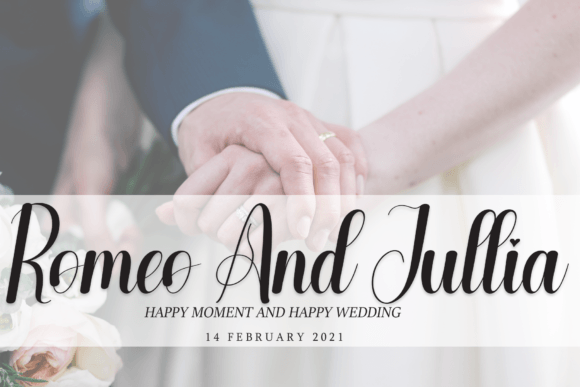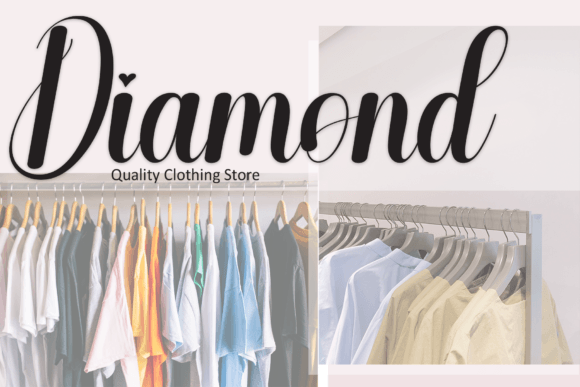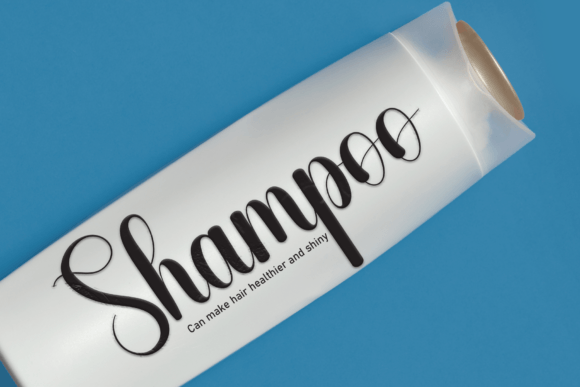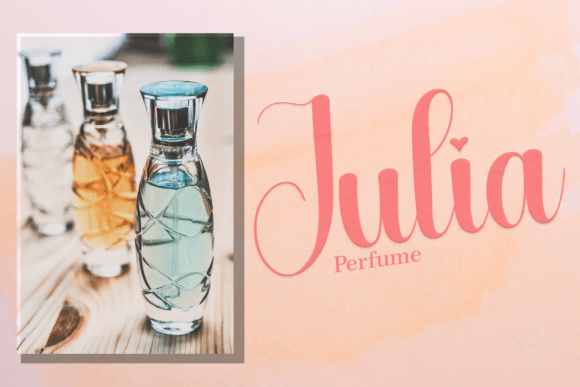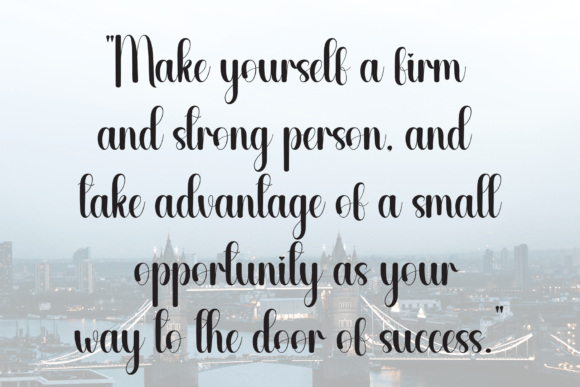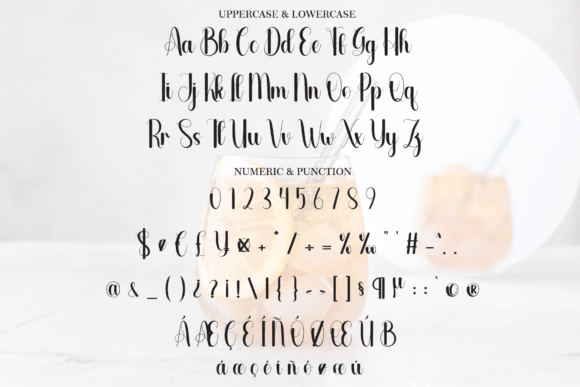
Introducing Drink Font: The Sweet and Friendly Handwritten Font for Your Creative Projects
Are you looking for a font that can add a touch of sweetness and friendliness to your designs? Look no further than Drink Font! This beautiful handwritten font is perfect for creating wedding invitations, cards, and other designs that require a fun and playful touch. In this article, we’ll take a closer look at Drink Font, its features, and how you can use it to elevate your creative projects.
What is Drink Font?
Drink Font is a sweet and friendly handwritten font that is designed to bring a touch of warmth and personality to your designs. Its fresh and neat style makes it ideal for a wide range of creative projects, from wedding invitations and cards to posters, flyers, and more. Whether you’re a designer, crafter, or DIY enthusiast, Drink Font is a great addition to your font collection.
Key Features of Drink Font
- Sweet and Friendly Style: Drink Font has a unique and charming style that is sure to capture the attention of your audience.
- Handwritten: This font is carefully crafted to mimic the look and feel of handwritten text, giving your designs a personal and human touch.
- Fresh and Neat: Drink Font is clean and easy to read, making it perfect for body text and headlines.
- Versatile: This font can be used for a wide range of creative projects, from wedding invitations and cards to posters, flyers, and more.
Use Cases for Drink Font
Drink Font is a versatile font that can be used for a variety of creative projects. Here are some use cases to get you started:
- Wedding Invitations: Add a touch of sweetness and romance to your wedding invitations with Drink Font.
- Cards: Create beautiful and personalized cards for birthdays, anniversaries, and other special occasions.
- Posters and Flyers: Use Drink Font to create eye-catching posters and flyers for events, promotions, and more.
- Social Media Graphics: Add a personal touch to your social media graphics with Drink Font.
Tips for Using Drink Font
Here are some tips for using Drink Font in your creative projects:
- Pair with Other Fonts: Drink Font pairs well with other fonts, such as sans-serif fonts for a modern look or serif fonts for a more traditional look.
- Use for Headlines and Body Text: Drink Font is suitable for both headlines and body text, making it a great all-around font for your designs.
- Experiment with Colors: Drink Font looks great in a variety of colors, so don’t be afraid to experiment and find the perfect color scheme for your design.
In conclusion, Drink Font is a sweet and friendly handwritten font that is perfect for adding a touch of warmth and personality to your designs. Its fresh and neat style makes it ideal for a wide range of creative projects, from wedding invitations and cards to posters, flyers, and more. With its versatility and charm, Drink Font is a great addition to any designer’s or crafter’s font collection.